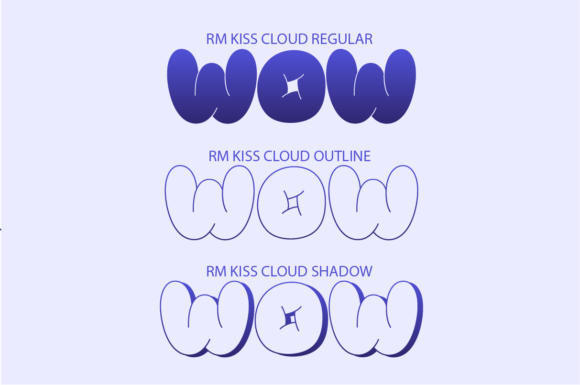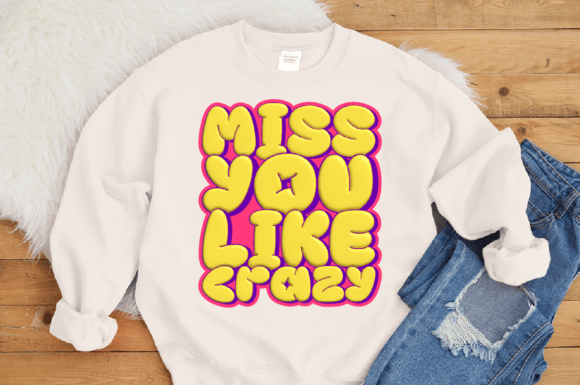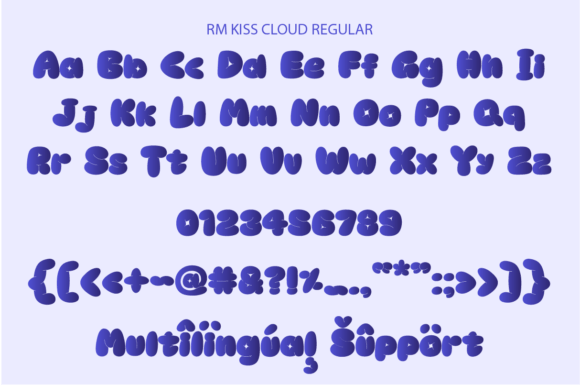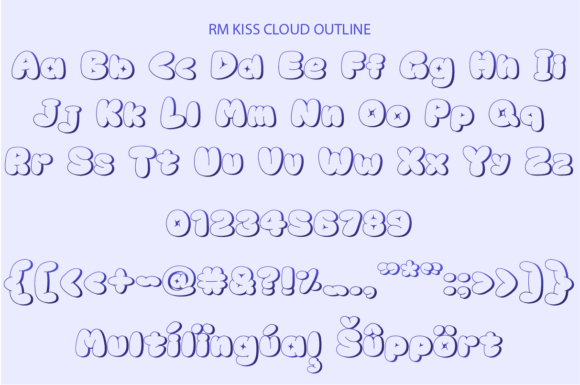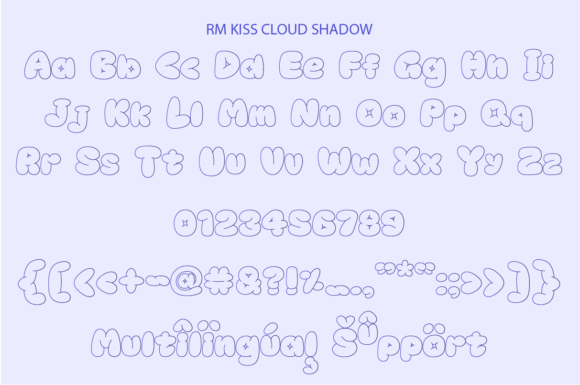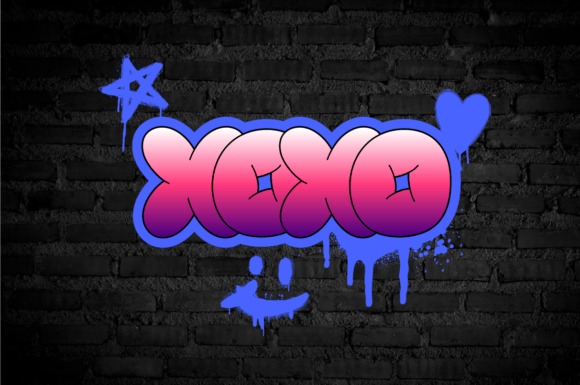
Introduction to Kiss Cloud Font
You’re in the middle of a creative project, brainstorming ideas and searching for the perfect design resource to bring your vision to life. Suddenly, a burst of color and energy catches your eye – the unmistakable vibe of street art. This is the moment when your project takes a bold turn, and the right font can make all the difference. Enter Kiss Cloud Font, a fun display font in graffiti style that’s perfect for creating eye-catching streetwear designs.
With its easy-to-use regular, outline, and shadow variations, Kiss Cloud Font is a valuable addition to any designer’s toolkit. Whether you’re working on a commercial project or a personal creative endeavor, this high-quality font is sure to elevate your design. And the best part? It’s available for free download, complete with a transparent background that makes it easy to mix and match with other street elements.
Key Features of Kiss Cloud Font
- Unique, cloud-inspired design with a transparent background, allowing for effortless layering and customization
- Large character set, including uppercase and lowercase letters, numbers, and punctuation marks, for comprehensive typography
Honest Review: Kiss Cloud Font
I recently came across the Kiss Cloud Font, and I must say it’s been a game-changer for my design projects. This font is perfect for creating a dreamy, ethereal atmosphere, which is exactly what I was looking for.
Here’s what I love about Kiss Cloud Font: ✨ It’s free to download, making it an excellent resource for designers on a budget. ✨ The font is available in several styles, giving me plenty of options for my creative project. ✨ The transparent background allows for seamless integration with other design elements.
However, I did encounter some limitations: ⚠️ The font may not be suitable for projects requiring a bold, modern look. ⚠️ Some of the characters may not be as detailed as I would like.
Overall, I’m impressed with Kiss Cloud Font. It’s a high-quality design resource that adds a touch of whimsy to my creative projects. While it may not be perfect, it’s definitely worth considering for your next design project.